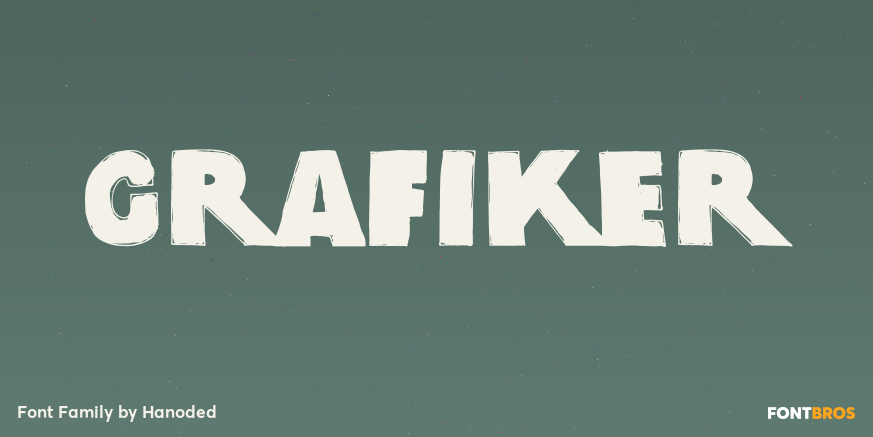
About Grafiker
Grafiker means ?Graphic Designer? in German. This fat, colored, uneven font with a 1001 uses was loosely based on the work of designers Oskar Kokoschka (1886 – 1980) and Jean Carlu (1900 – 1997). The glyphs were hand-drawn with a 0.5 roller ball and colored…